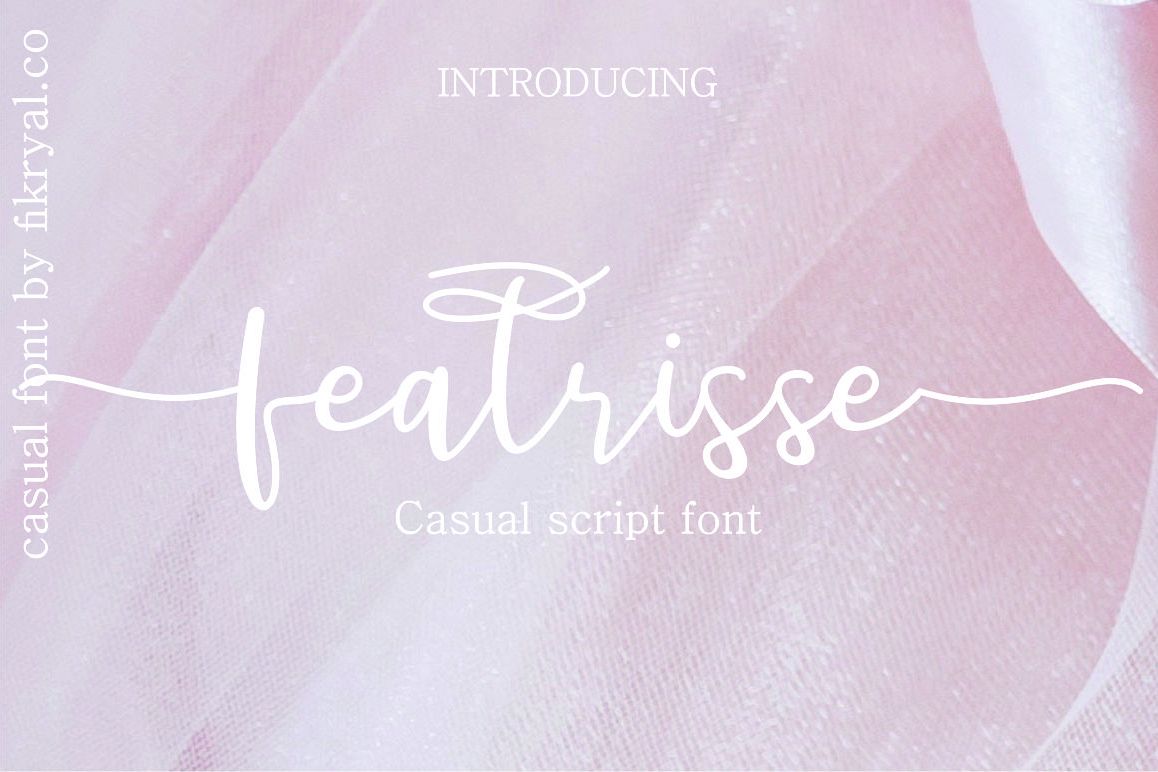
featrisse // casual script font
introduce my new product, featrisse. featrisse is a very beautiful casual script with alternate and beautiful ligature. of course I did it very long and was very careful to get good results.
and this font is very good for all your needs such as: logos, mockup, design, magazine, art, quotes and others